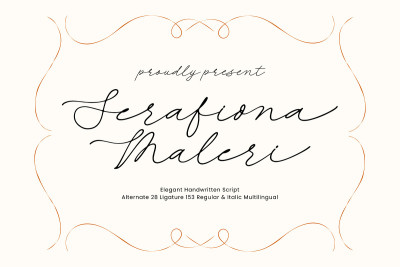
Serafiona Maleri Elegant Handwritten Font
Serafiona Maleri Elegant Handwritten is a carefully designed typeface that brings a refined aesthetic to any creative project.
Its proportions suit a wide range of uses: website headers, printed flyers, restaurant menus, annual reports, and product packaging.
Explore what Serafiona Maleri Elegant Handwritten can do for your work and experience the difference a well-crafted typeface makes.